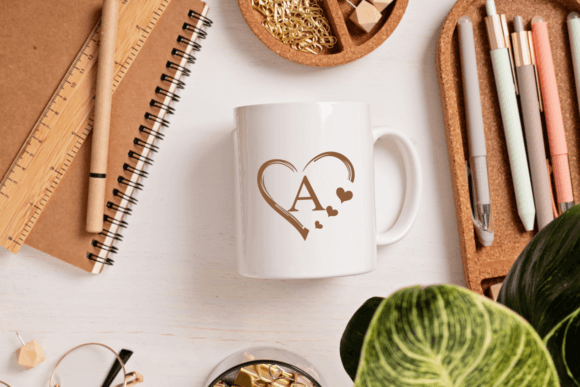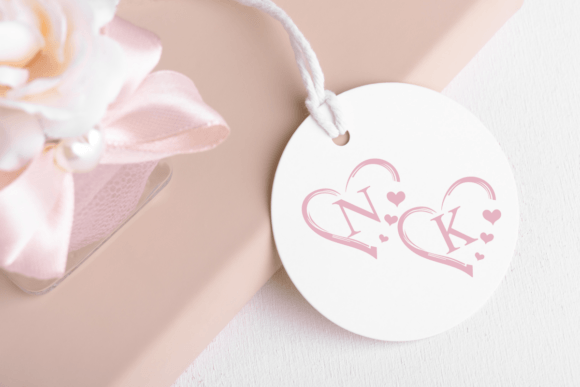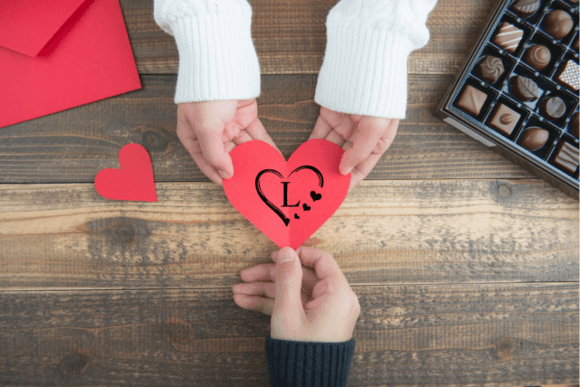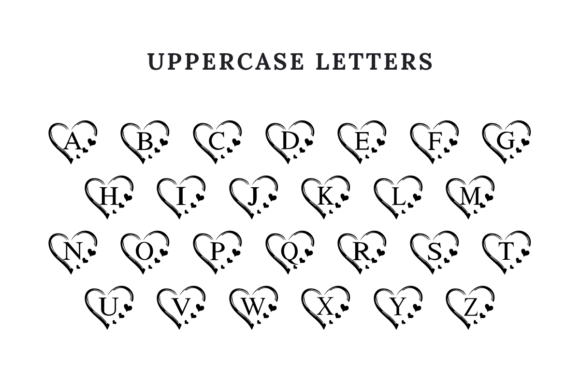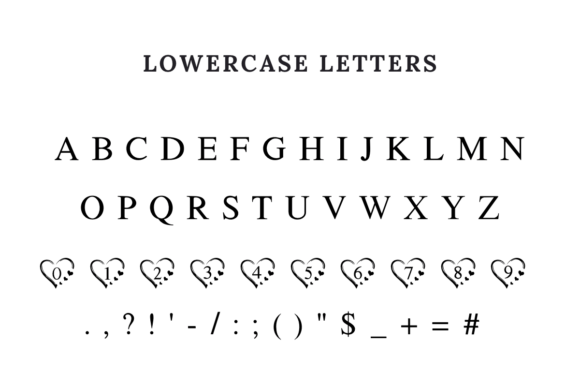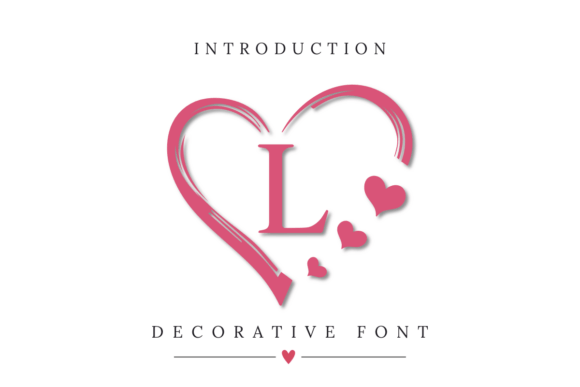
Cute Heart Monogram Font: Add a Touch of Whimsy to Your Designs
Are you looking for a font that can add a touch of whimsy and romance to your designs? Look no further than the Cute Heart Monogram Font! This gorgeous decorative font is perfect for crafters, designers, and anyone who loves to add a personal touch to their creations. In this article, we’ll explore the features and uses of the Cute Heart Monogram Font, and show you how to make the most of this beautiful font.
What is Cute Heart Monogram Font?
The Cute Heart Monogram Font is a decorative font that features intricate heart-shaped designs and monogrammed letters. It’s a unique and eye-catching font that’s perfect for adding a touch of personality to your designs. The font is highly versatile and can be used for a wide range of projects, from personal to professional.
Features of Cute Heart Monogram Font
The Cute Heart Monogram Font has several features that make it a standout font. Some of its key features include:
- Heart-shaped designs: The font features intricate heart-shaped designs that add a touch of whimsy and romance to your designs.
- Monogrammed letters: The font includes monogrammed letters that can be used to create personalized designs.
- Highly versatile: The font can be used for a wide range of projects, from personal to professional.
- Easily customizable: The font can be easily customized to fit your design needs.
Uses of Cute Heart Monogram Font
The Cute Heart Monogram Font is a highly versatile font that can be used for a wide range of projects. Here are some ideas to get you started:
- Journaling and diarying: Use the font to add a touch of personality to your journal or diary entries.
- Greeting cards: Create beautiful and unique greeting cards for special occasions.
- Banners and signs: Use the font to create eye-catching banners and signs for parties, events, and more.
- Mugs and water bottles: Add a touch of personality to your mugs and water bottles with custom designs.
- Social media posts: Use the font to create eye-catching social media posts that stand out from the crowd.
- Stationery and paper crafts: Use the font to create beautiful and unique stationery and paper crafts.
- T-shirts and apparel: Create custom designs for t-shirts and apparel.
Tips for Using Cute Heart Monogram Font
Here are some tips for using the Cute Heart Monogram Font:
- Experiment with different colors: The font looks great in a variety of colors, so don’t be afraid to experiment and find the perfect color for your design.
- Mix and match with other fonts: The Cute Heart Monogram Font pairs well with other fonts, so try mixing and matching it with different fonts to create a unique look.
- Use it for headings and titles: The font is perfect for headings and titles, so use it to add a touch of personality to your designs.
- Don’t be afraid to get creative: The Cute Heart Monogram Font is a versatile font that can be used in a wide range of projects, so don’t be afraid to get creative and try new things.
The Cute Heart Monogram Font is a beautiful and versatile font that’s perfect for crafters, designers, and anyone who loves to add a personal touch to their creations. With its intricate heart-shaped designs and monogrammed letters, it’s a font that’s sure to add a touch of whimsy and romance to your designs. Whether you’re creating journal entries, greeting cards, or social media posts, the Cute Heart Monogram Font is a great choice. So why not give it a try and see what amazing designs you can create?